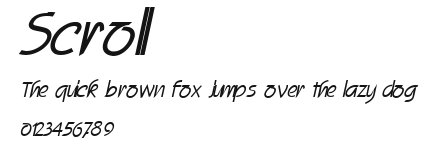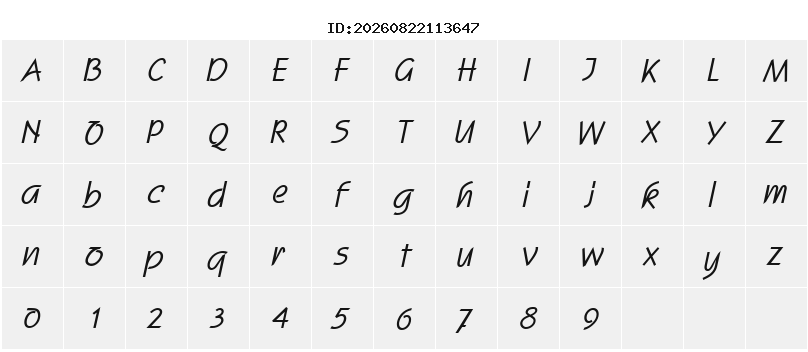
• Font Name: Scroll
• Font Style: BoldItalic
• Font ID: Altsys Fontographer 4.1 Scroll BoldItalic
• Full Font Name: Scroll BoldItalic
• Version: Altsys Fontographer 4.1 2/2/95
• PostScript Name: ScrollBoldItalic
• Character Count: 225
About Scroll.ttf
Scroll.ttf is a modern, elegant sans-serif font designed for ultimate readability and visual harmony. Perfect for branding, headlines, web design, and print materials.